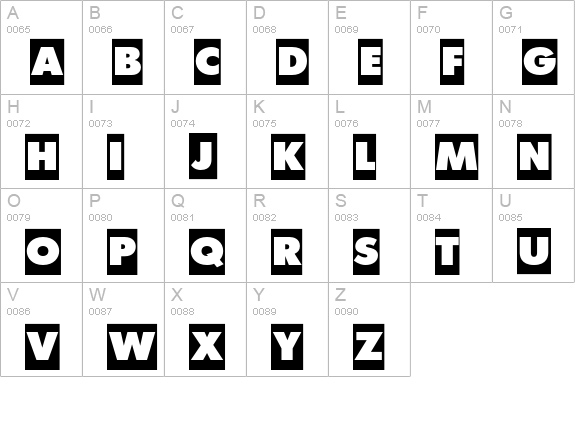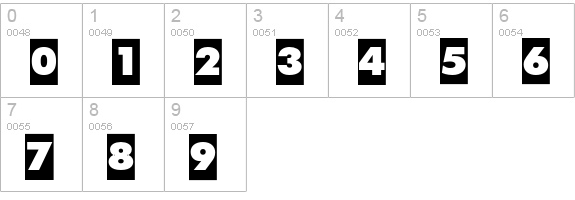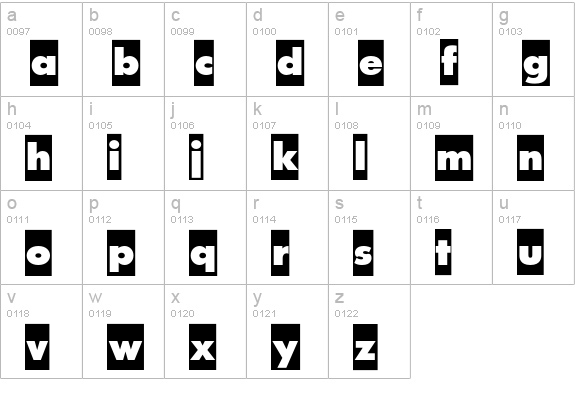
PT FuturaFuturis Black Cameo Cyrillic is a maximum-weight, dramatic variant in the PT typeface family \xE2\x80\x94 well suited to maximum-impact headlines, posters, and packaging.
The PT FuturaFuturis Black Cameo Cyrillic font is a stylish and modern typeface that exudes sophistication and elegance. With its bold and distinctive design, this font is perfect for creating eye-catching headlines, logos, and branding materials. The sleek and futuristic aesthetic of the font makes it ideal for projects that require a contemporary and professional look. What's even better is that the PT FuturaFuturis Black Cameo Cyrillic font is available for free download at FontsMarket.com. This means you can easily access and use this stunning typeface in your design projects without any cost. Whether you're a graphic designer, a web developer, or a typographer, this font is a valuable addition to your collection. Don't miss out on the opportunity to enhance your designs with the PT FuturaFuturis Black Cameo Cyrillic font today!